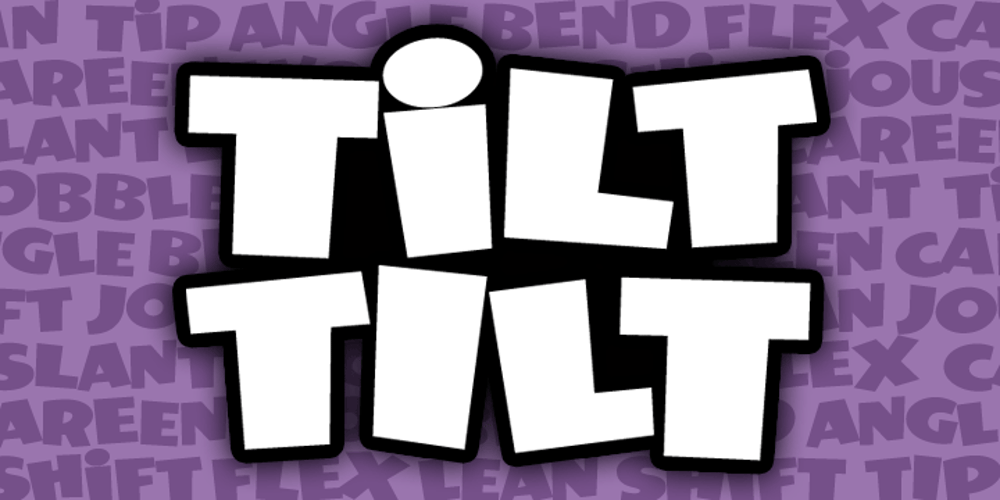
TILT Font Family was designed by Randy Szarzynski and published by SzarDesign. TILT contains 1 styles and family package options. With TILT CAPS and lowercase “CAPS” you can shakeup your headlines on the fly. Tilt left or right, bounce up and down to find the right mix for your message, perfect for fun active design projects.